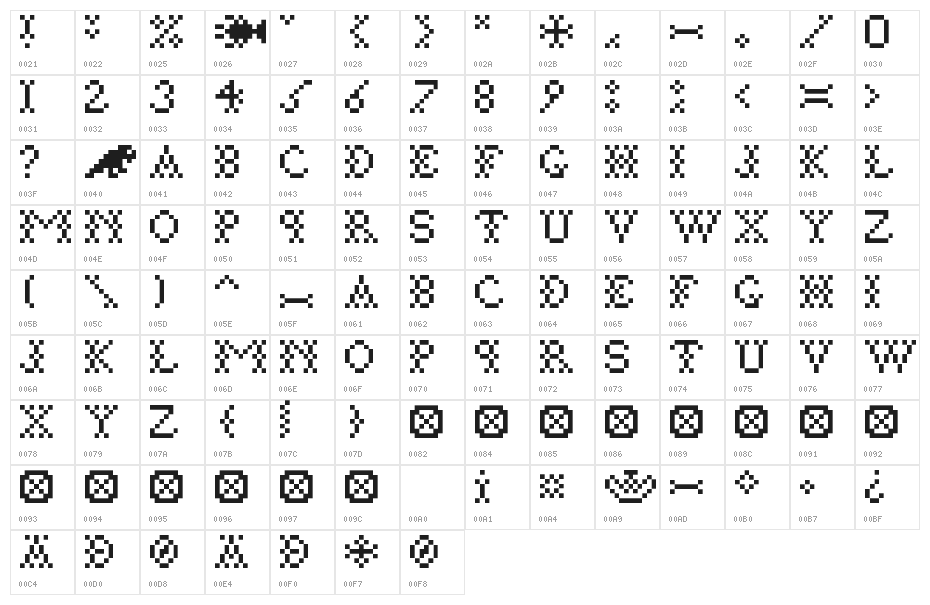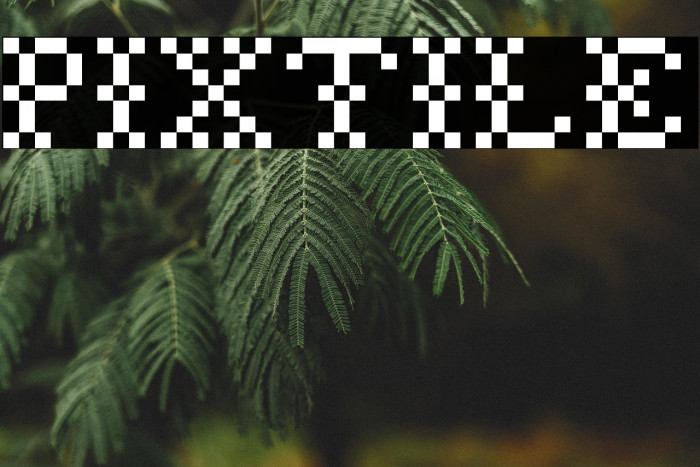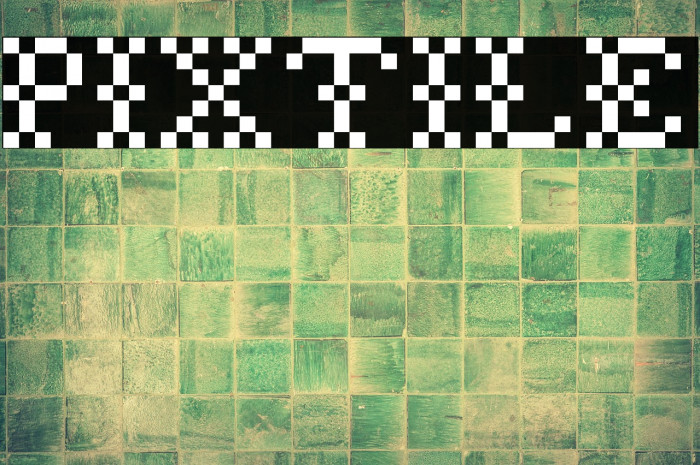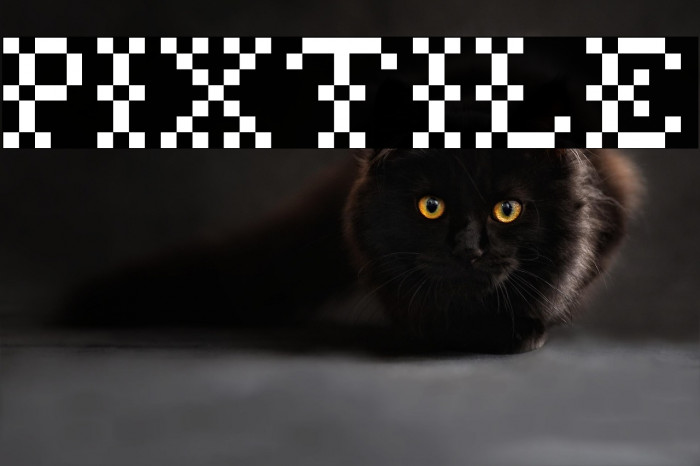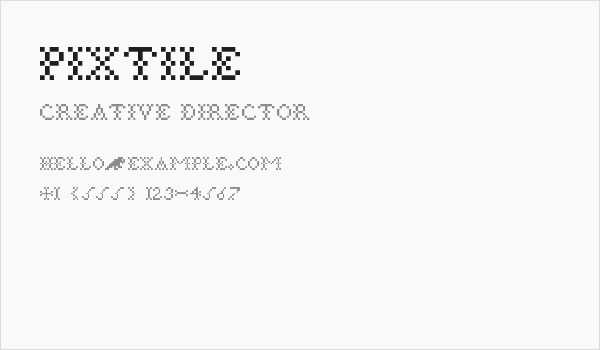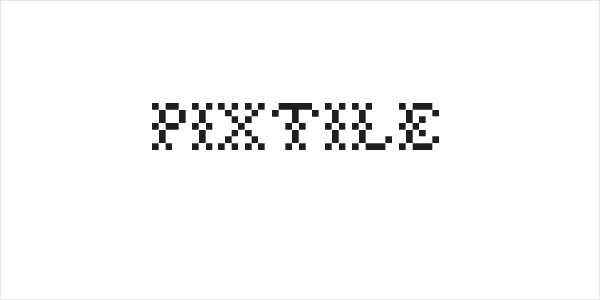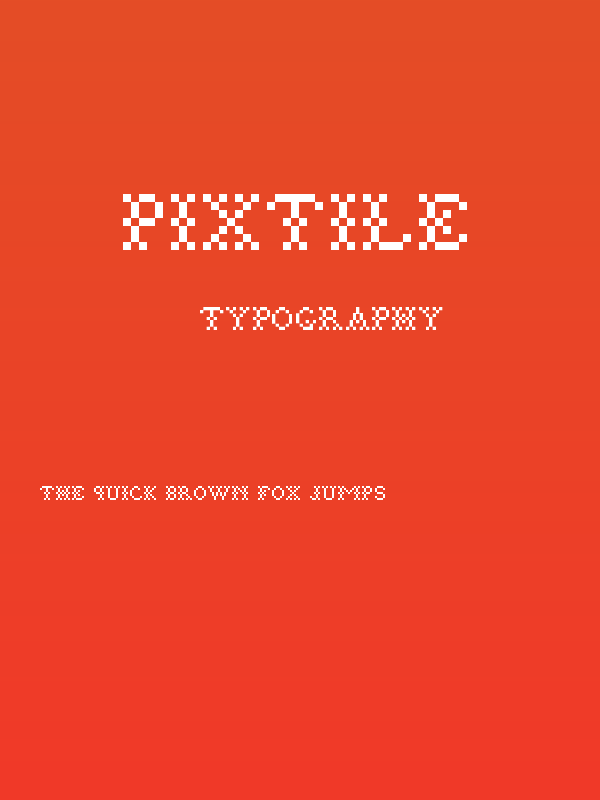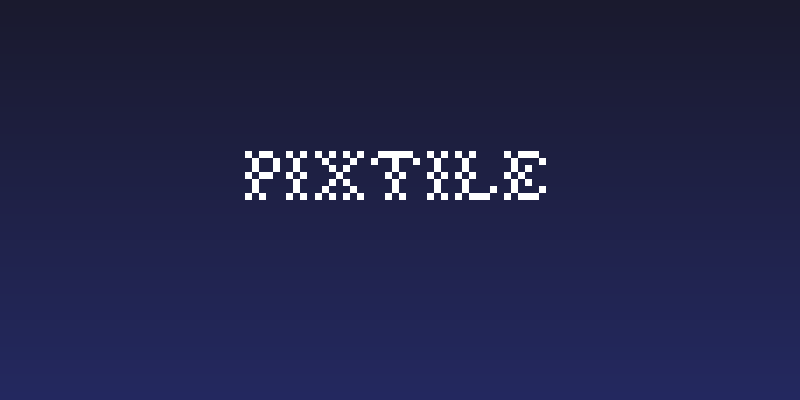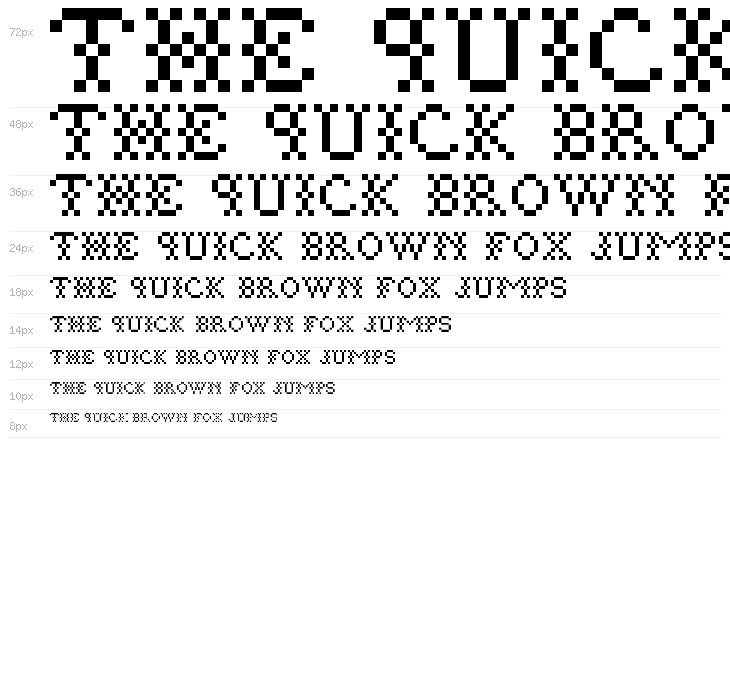
Pixtile Font
Pixtile Description
This font features a pixelated, grid-like structure that evokes a retro, digital aesthetic reminiscent of early computer graphics or video game design. Each character is composed of small, square blocks that form the outlines of letters and numbers, creating a distinct, geometric appearance. The uniformity of the pixel size across all characters gives the font a cohesive and consistent look, while the spacing between the blocks allows for clear legibility despite the unconventional style. The font's playful and nostalgic vibe makes it ideal for projects that aim to capture a sense of vintage digital charm.
| Use Case | Logos, Headlines, Digital Art |
| Proposed Projects | Ideal for retro video game designs, digital art projects, tech-themed posters, and nostalgic branding. |